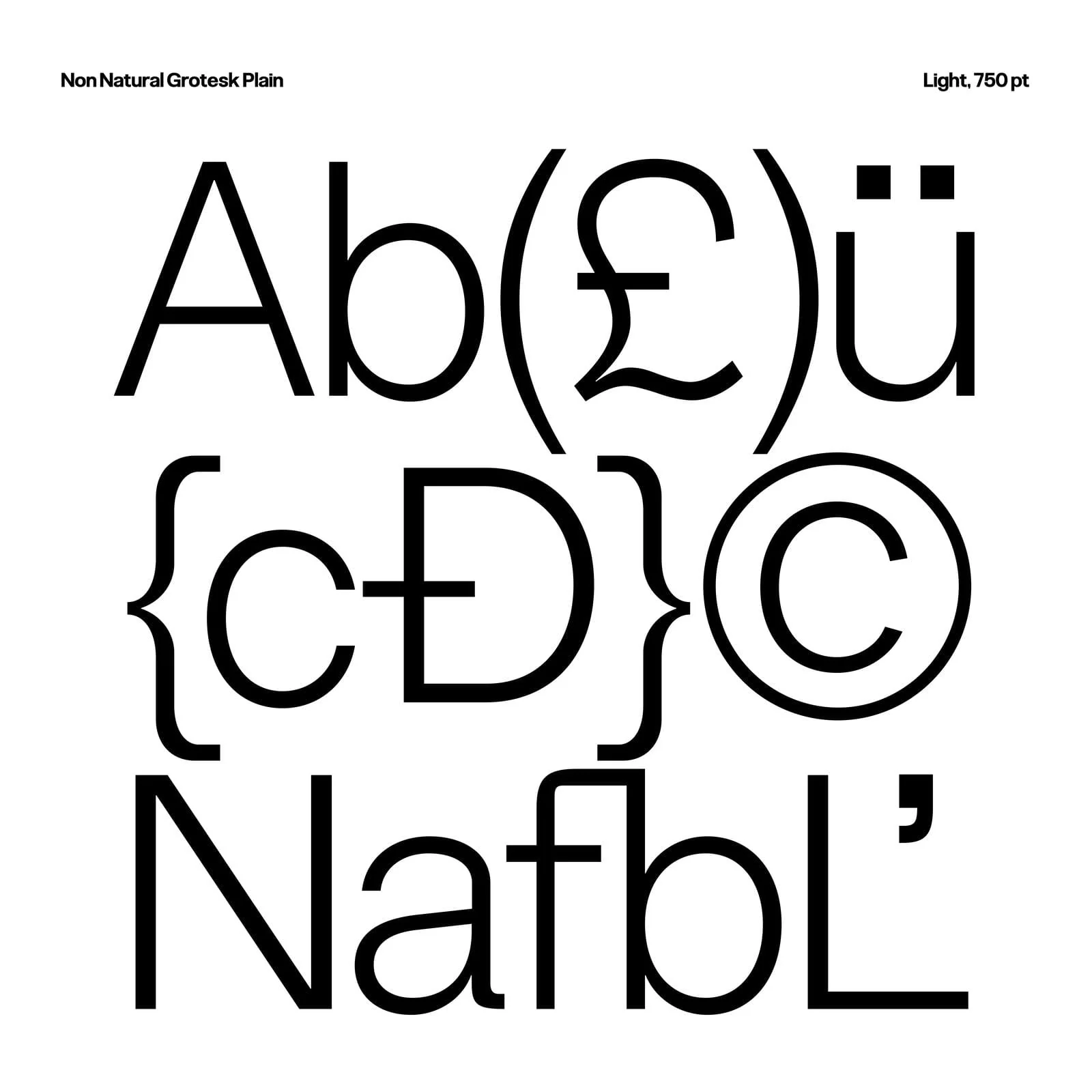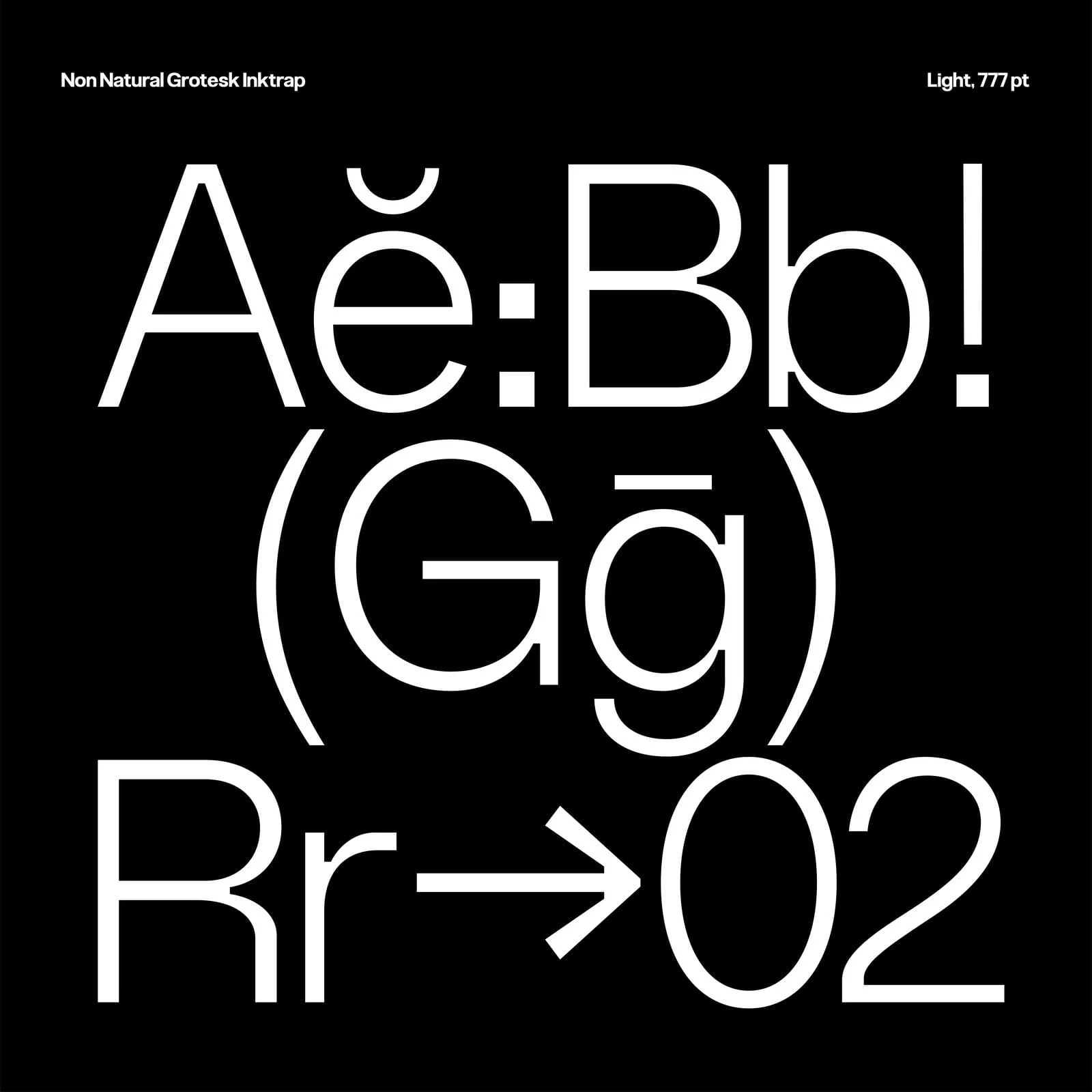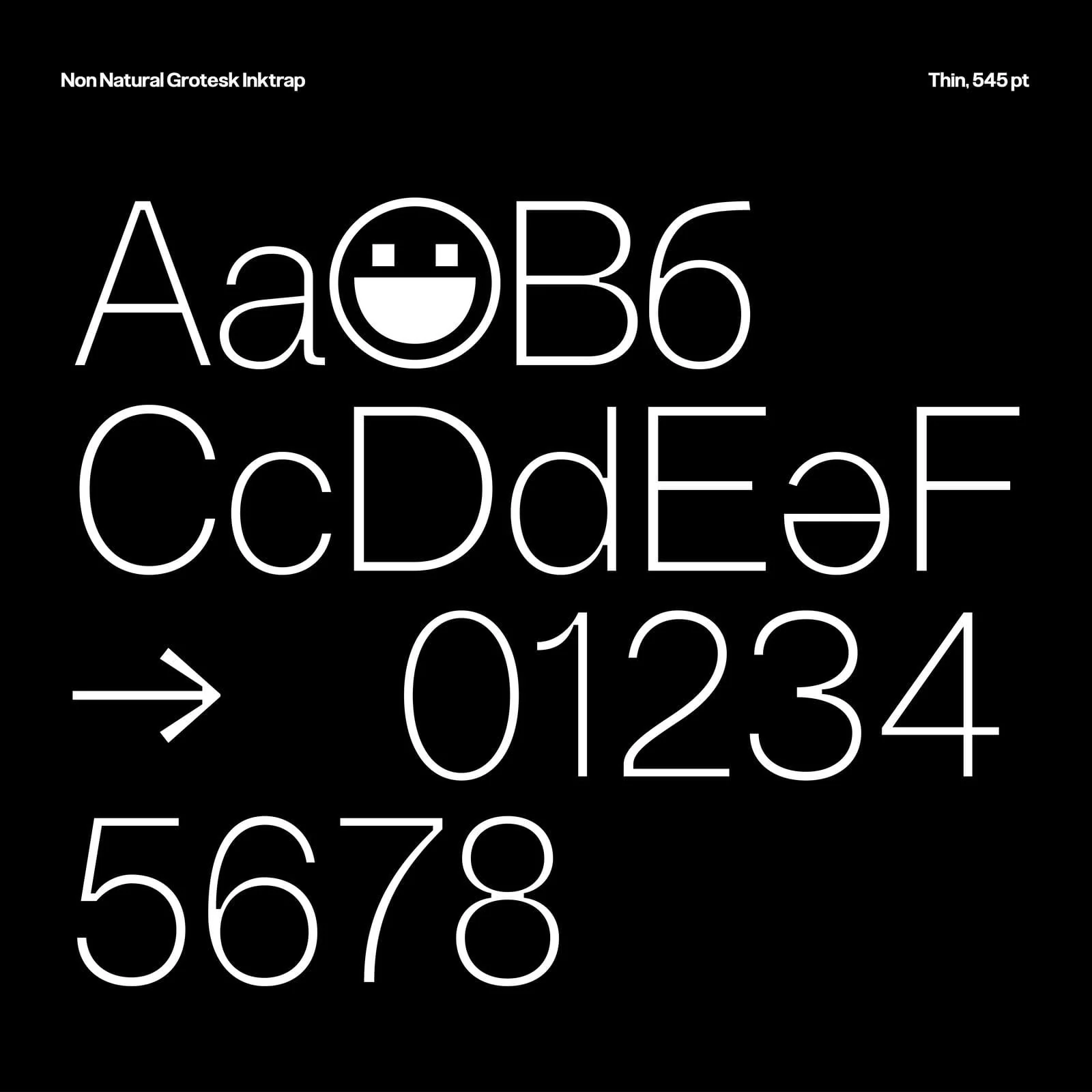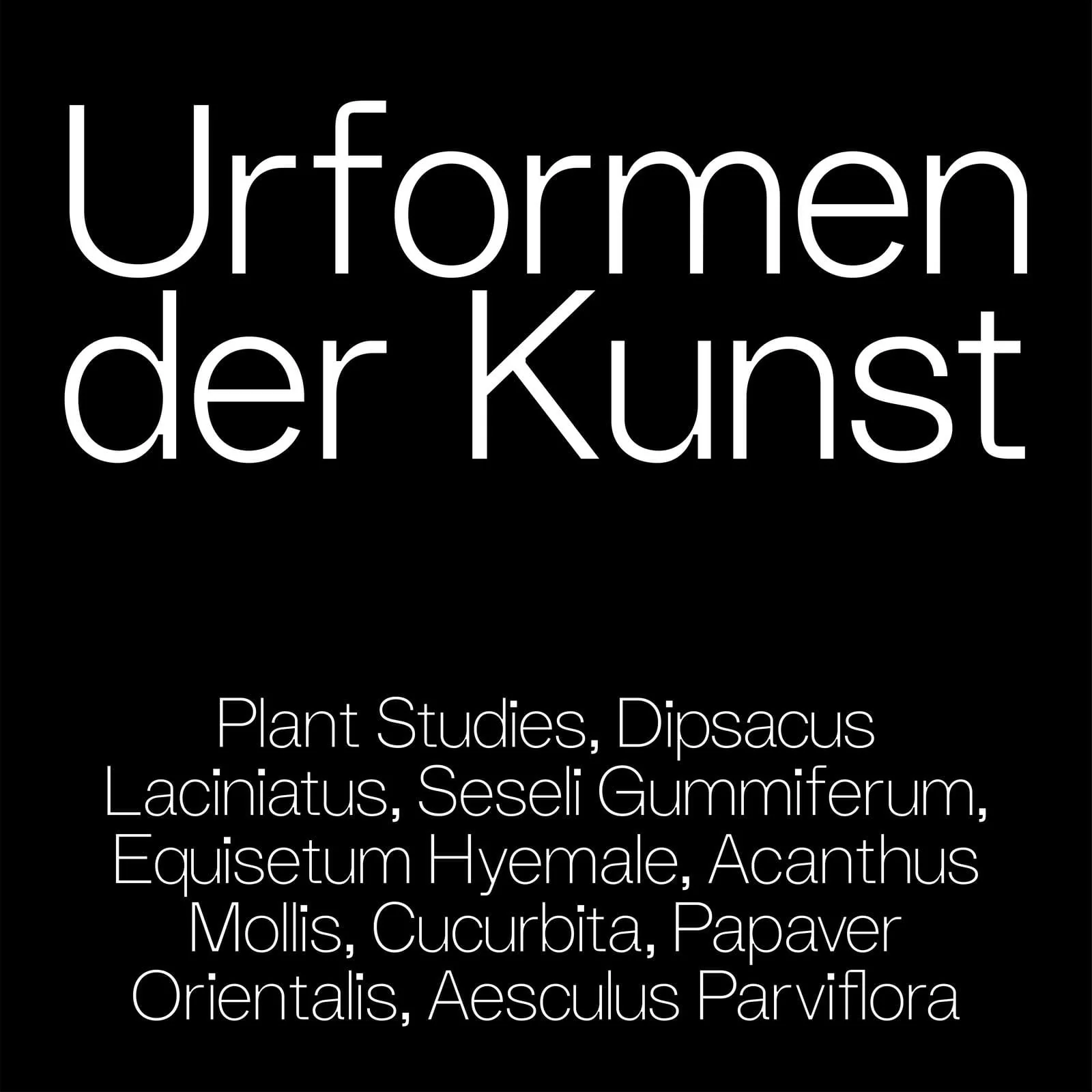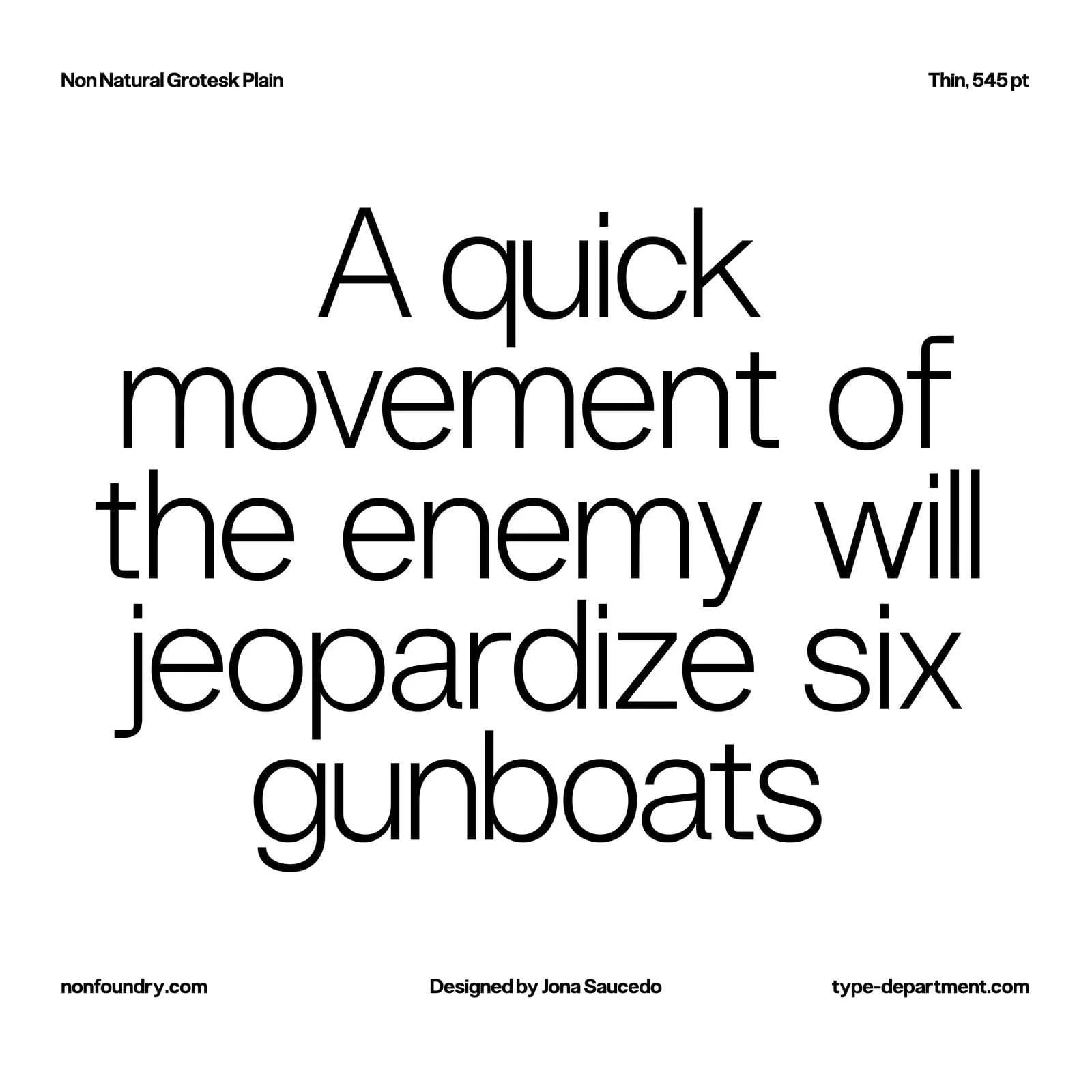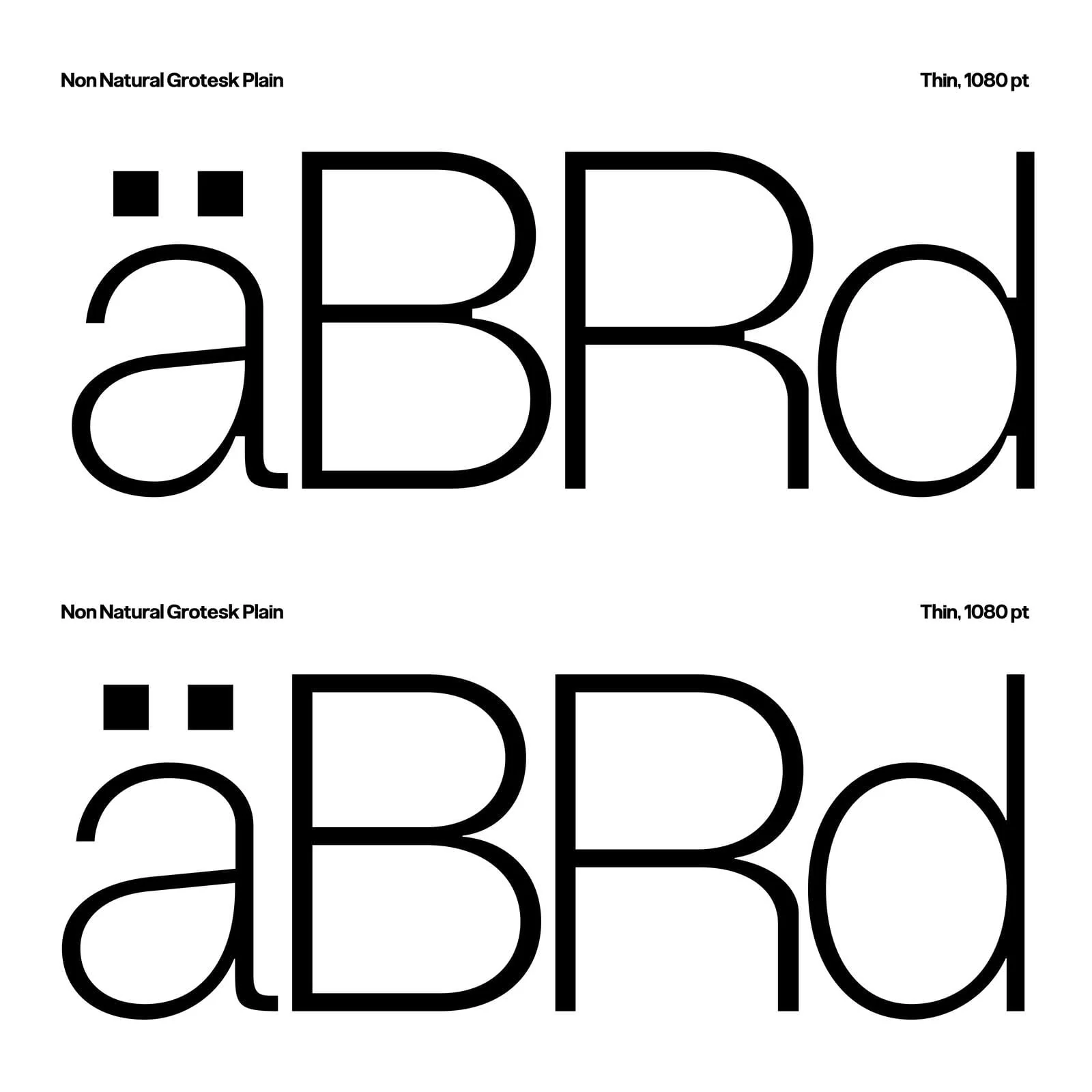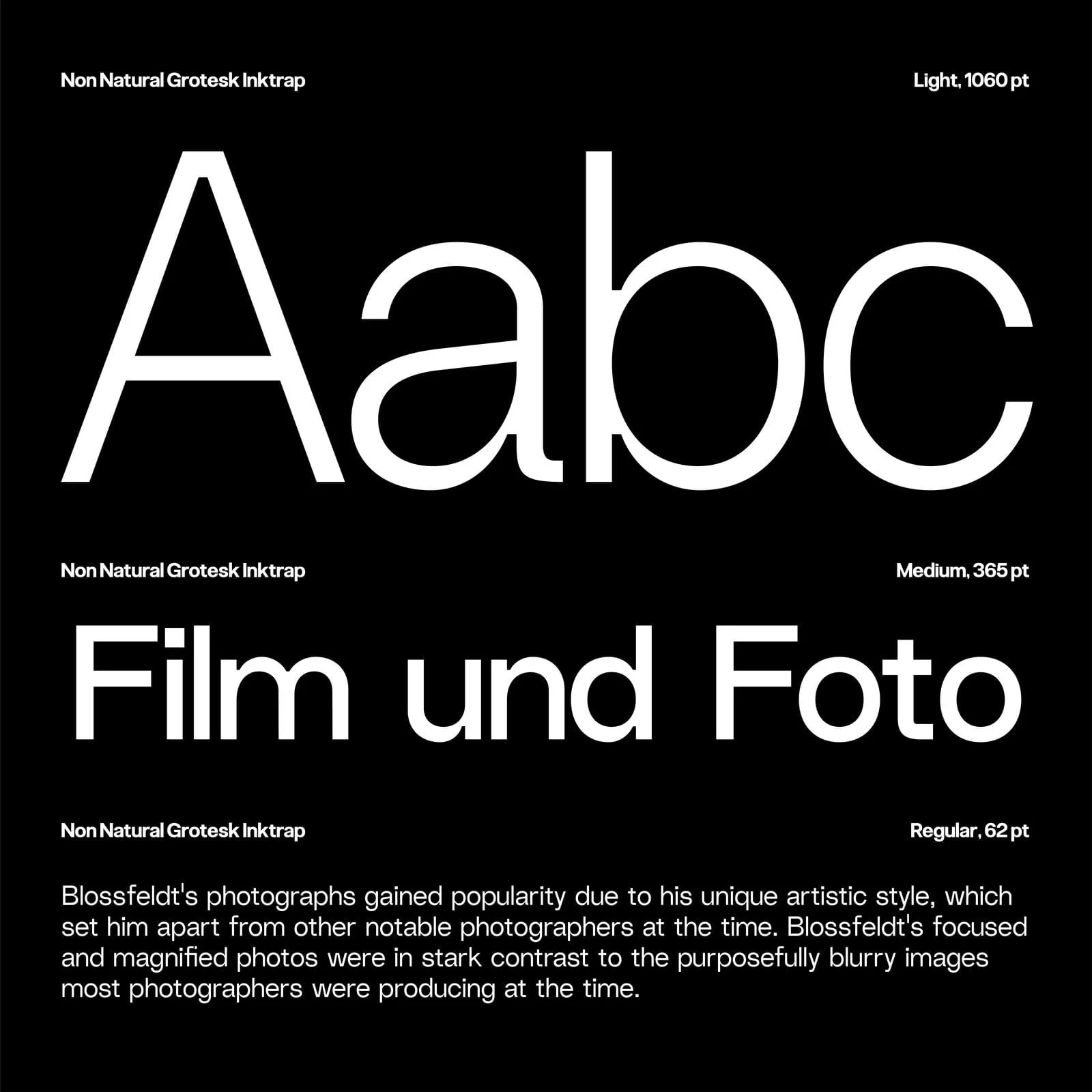
Non Natural Grotesk
At first glance, Non Natural Grotesk presents as a straightforward, functional typeface. However, a closer look reveals its compelling details and subtle deviations from the norm, drawing you into its unique charm.
Designed by Jonathan Saucedo, this typeface features intricate touches such as balanced counter widths and spacious apertures, ensuring comfort and readability across all weights and sizes. Non Natural Grotesk stands out for its exceptional legibility and striking contrast between black and white, making it a versatile choice for various design applications.
Combining contemporary details with classic styles, Non Natural Grotesk sits confidently in any context, from digital interfaces to print media, showcasing a seamless blend of modern design and timeless elegance.
At first glance, Non Natural Grotesk presents as a straightforward, functional typeface. However, a closer look reveals its compelling details and subtle deviations from the norm, drawing you into its unique charm.
Designed by Jonathan Saucedo, this typeface features intricate touches such as balanced counter widths and spacious apertures, ensuring comfort and readability across all weights and sizes. Non Natural Grotesk stands out for its exceptional legibility and striking contrast between black and white, making it a versatile choice for various design applications.
Combining contemporary details with classic styles, Non Natural Grotesk sits confidently in any context, from digital interfaces to print media, showcasing a seamless blend of modern design and timeless elegance.